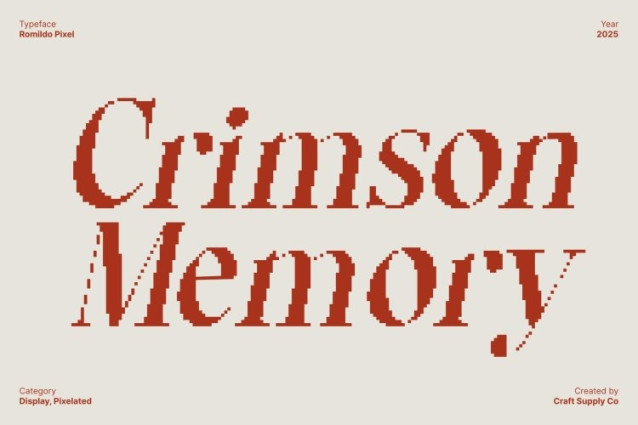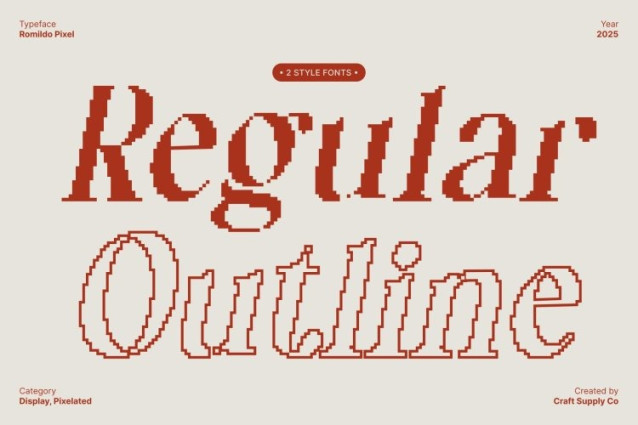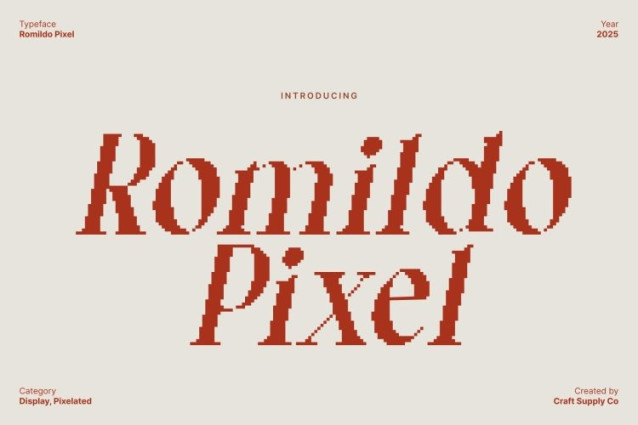
Romildo Pixel Font This is a retro-style serif font reimagined through a pixel-inspired lens, blending traditional type aesthetics with a fresh digital twist. Its classic serif shapes gain a bold new character when paired with pixel detailing, creating a distinctive style that stands out in both vintage and modern design spaces.
Pixel Integration for Unique Visual Texture
The pixel structure in Romildo Pixel adds rhythm, structure, and a handcrafted digital texture to every letterform. These pixel accents introduce a nostalgic 8-bit charm while still retaining a refined serif silhouette, making the font visually engaging without sacrificing clarity. This combination elevates your designs with personality, making them instantly recognizable and full of character.
Perfect for Retro, Modern, and Digital Branding
This font shines across various design needs from retro-themed visuals to sleek modern branding. Its expressive serif shapes combined with pixel influences make it suitable for logos, posters, game titles, website interfaces, packaging, and digital branding projects.
Versatile for Creative and Experimental Layouts
Because of its distinctive blend of styles, adapts effortlessly to bold headlines, expressive titles, and creative layouts. Designers can leverage its unique structure to build compelling visuals that feel artistic, stylish, and modern. Its ability to switch from playful retro to polished digital aesthetics makes it a valuable typeface for inventive, boundary-pushing design work.